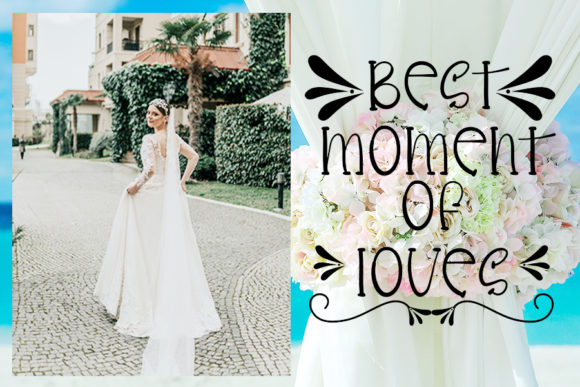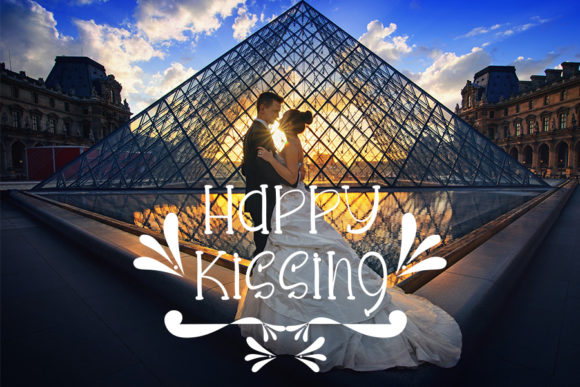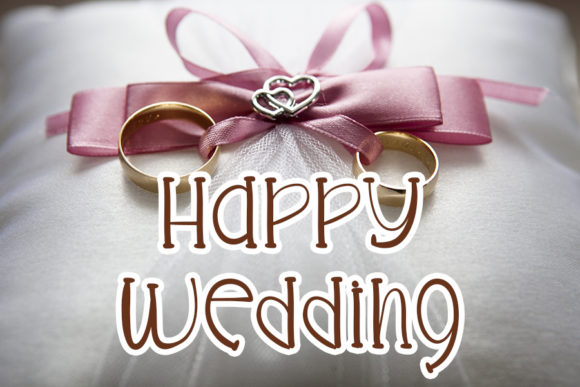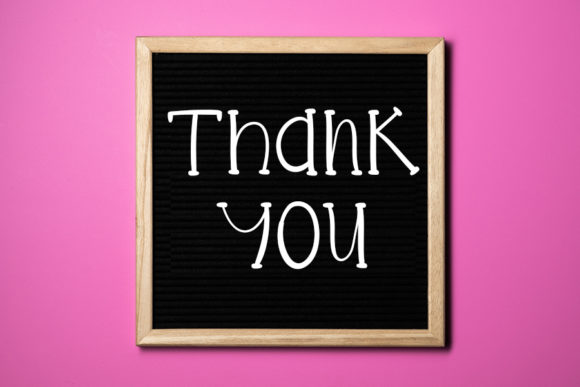
Introduction to Rose Beauty Font
You know that moment when a spark of creativity hits you, and you can’t wait to bring your idea to life? For designers, that moment is a thrill unlike any other. It’s the thrill of turning a concept into a beautiful reality, of making something unique and special. And what’s the perfect companion to this creative journey? A font that’s as charming as it is versatile – the Rose Beauty Font.
This simple, quirky, and casual handwritten font is a design resource that will elevate any creative project. Whether you’re working on a personal or professional project, the Rose Beauty Font is sure to make your work stand out. With its free download option and transparent background, you can easily incorporate it into your design without any hassle. What’s more, the high-quality design ensures that your work looks professional and polished.
So, what makes the Rose Beauty Font so valuable for designers? Its unique blend of style and functionality makes it an essential tool for anyone looking to add a touch of personality to their designs. With the Rose Beauty Font, you can create anything from invitations to social media graphics, and everything in between.
Key Features of Rose Beauty Font
- High-quality, elegant design perfect for creative projects and design resources.
- Unique, delicate script font with a transparent background, ideal for adding a touch of sophistication to any design.
- Perfect for use in invitations, greeting cards, wedding designs, and other creative projects requiring a touch of elegance.
Honest Review: Rose Beauty Font
As a designer, I’m always on the lookout for high-quality design resources that can elevate my creative projects. Recently, I stumbled upon the Rose Beauty Font, and I must say it’s been a pleasant surprise.
- ✨ Beautiful, elegant script style that adds a touch of sophistication to any design.
- ✨ High-quality vector graphics that ensure crisp and clear rendering, even at large sizes.
- ⚠️ Limited character set, which may not be ideal for extended text blocks.
- ⚠️ May not be suitable for use in situations where a bold, sans-serif font is required.
Overall, the Rose Beauty Font is a solid addition to any designer’s toolkit. While it may have some limitations, its elegant script style and high-quality graphics make it a great choice for creative projects that require a touch of beauty and sophistication.
The Rose Beauty Font is ideal for a variety of applications, including wedding invitations, greeting cards, and branding materials. Its elegant design makes it perfect for any creative project that requires a touch of sophistication.